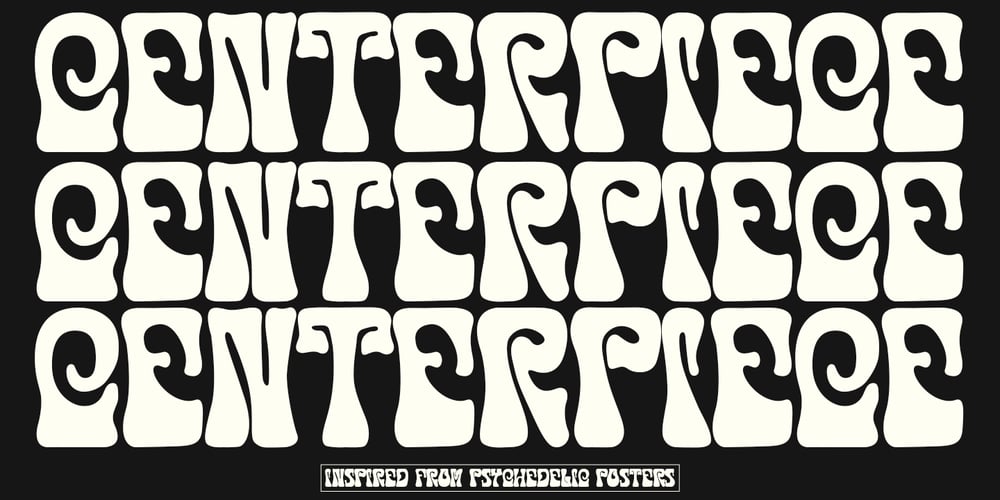
Centerpiece Font Family was designed by Asep Rendy and published by Heyfonts. Centerpiece contains 2 styles and family package options. Centerpiece is Psychedelic typeface refers to a style of typography that emerged in the 1960s during the height of the counterculture movement. It is characterized by its bold, vibrant colors, and graphic designs that incorporate abstract shapes, curves, and patterns. The psychedelic typeface is often associated with the mystical and surreal since it draws inspiration from altered states of consciousness experienced through the use of psychedelic drugs.It also incorporates a variety of lettering techniques such as bending, twisting, and outlining. The typefaces have a distinctive look that evokes a sense of free-spirited creativity and experimentation. Psychedelic typefaces can be used for various purposes, including posters, album covers, and promotional materials.To sum it up, psychedelic typeface is a unique style of typography that was popularized during the 1960s and is still relevant today. It incorporates bold colors, graphic designs, and a range of lettering techniques that create an eye-catching and trippy aesthetic. It is a testament to the counterculture movement and the power of artistic expression.